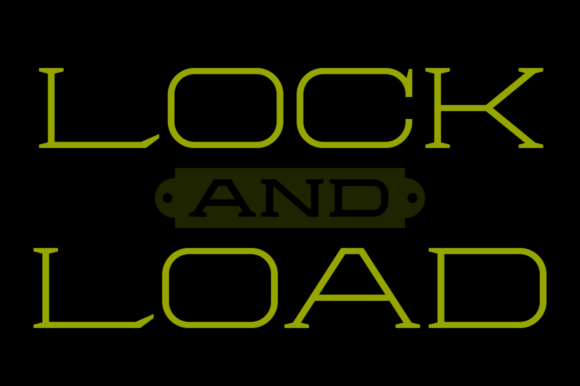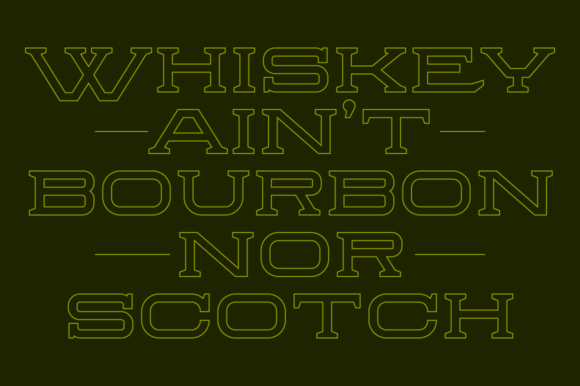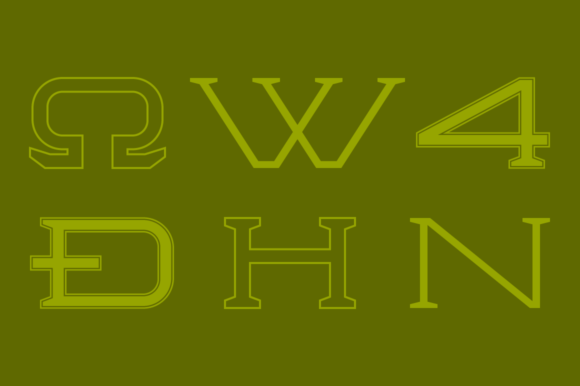
Introduction to Herradura Family Font
Herradura font family has been designed for Graviton Font Foundry by Pablo Balcells in 2013.
It is a wood-type slab serif typeface with a slightly techno angular look Herradura consists of 8 styles including 4 shadowed styles, each containing framed characters and endings.